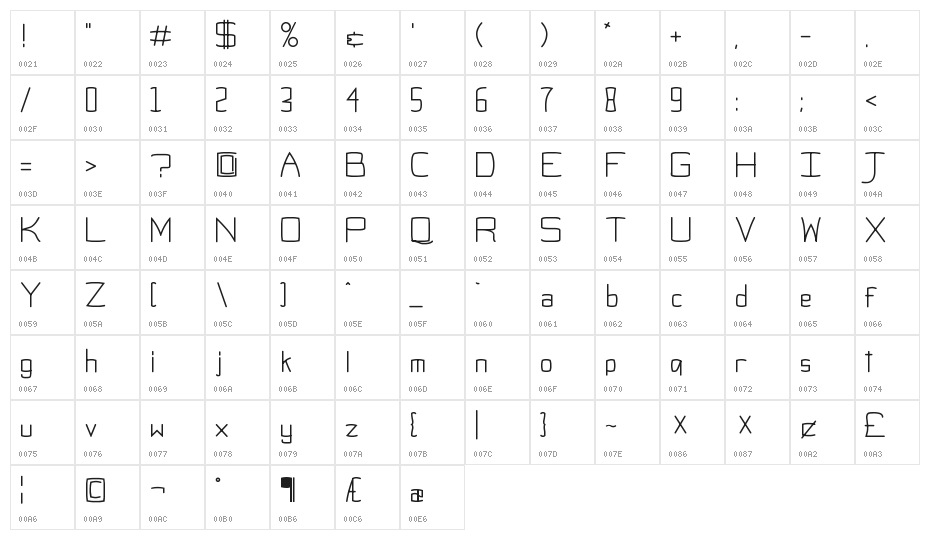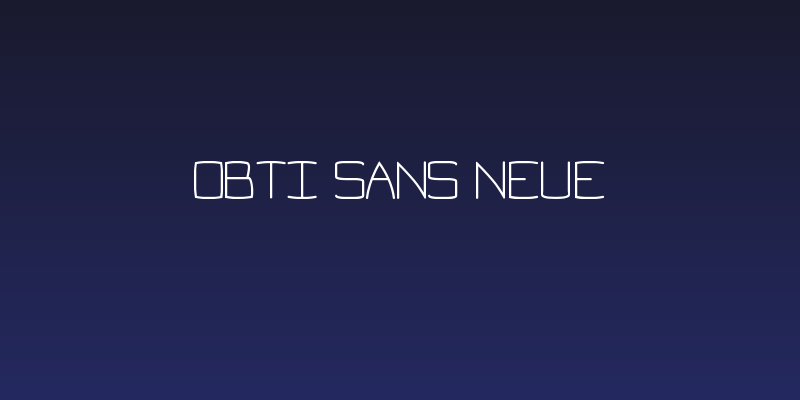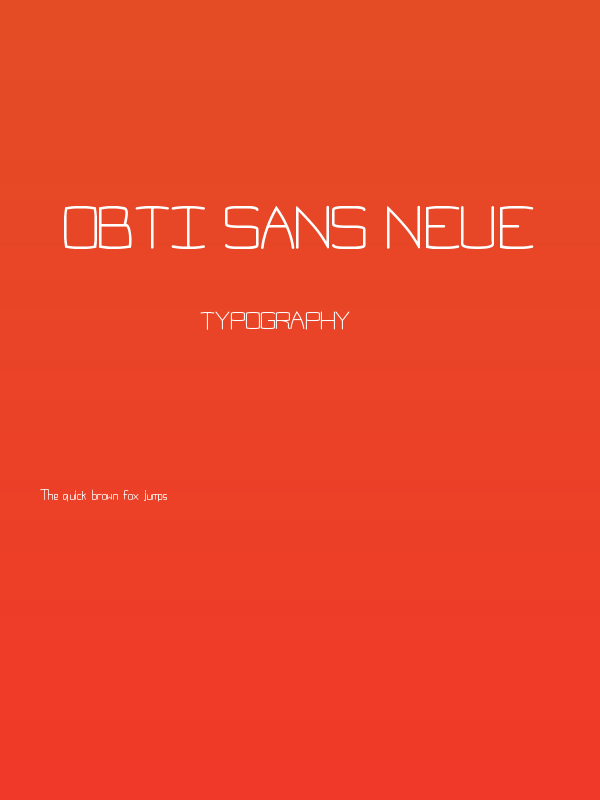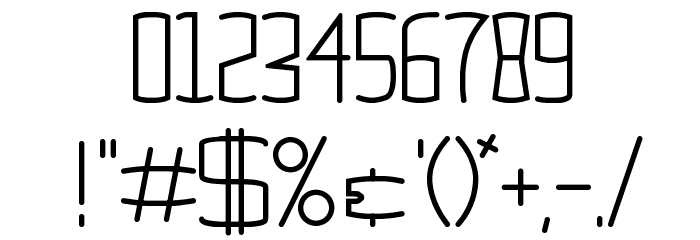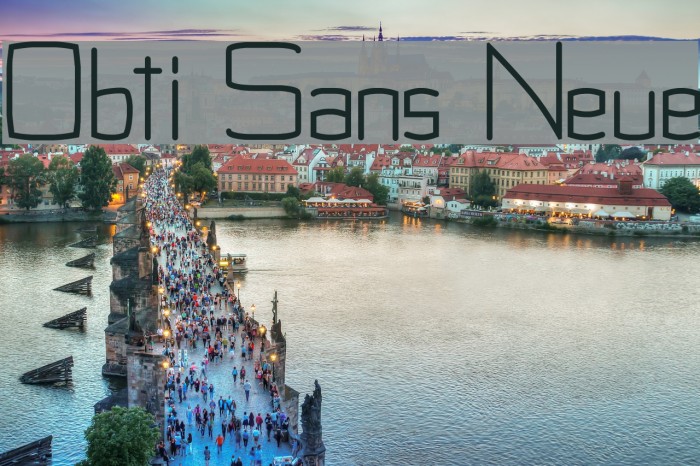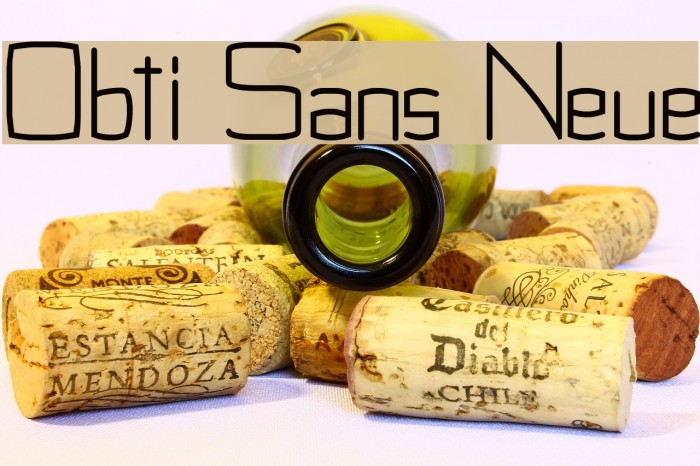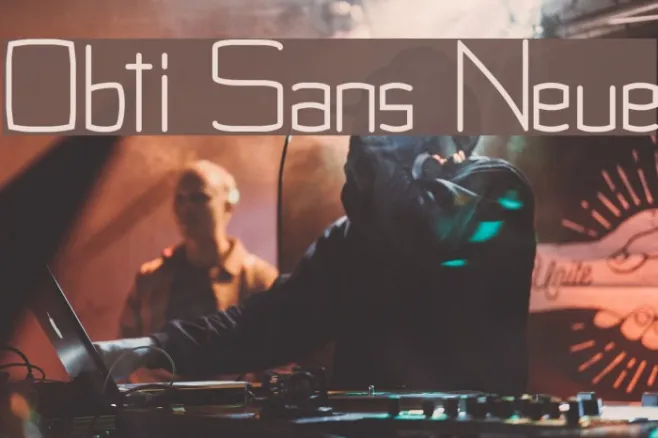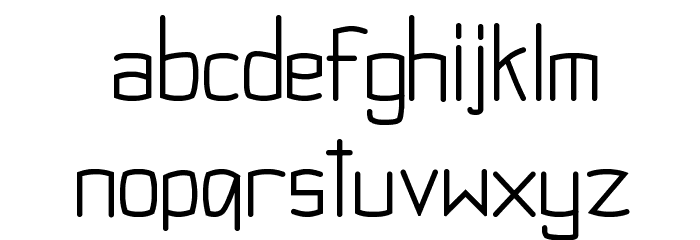
Obti Sans Neue Font
Obti Sans Neue Description
This font features a modern and clean design with a geometric structure. The characters are evenly spaced and have a consistent line weight, giving it a balanced and harmonious appearance. The uppercase letters are tall and narrow, while the lowercase letters maintain a similar width, creating a cohesive look. The numerals are clear and legible, with a uniform height that matches the uppercase letters. Special characters are distinct and well-integrated into the overall design. The font's simplicity and clarity make it versatile for various applications.
| Use Case | Headlines, Logos, User Interfaces |
| Proposed Projects | Ideal for tech branding, minimalist posters, modern web design, and user interfaces. |